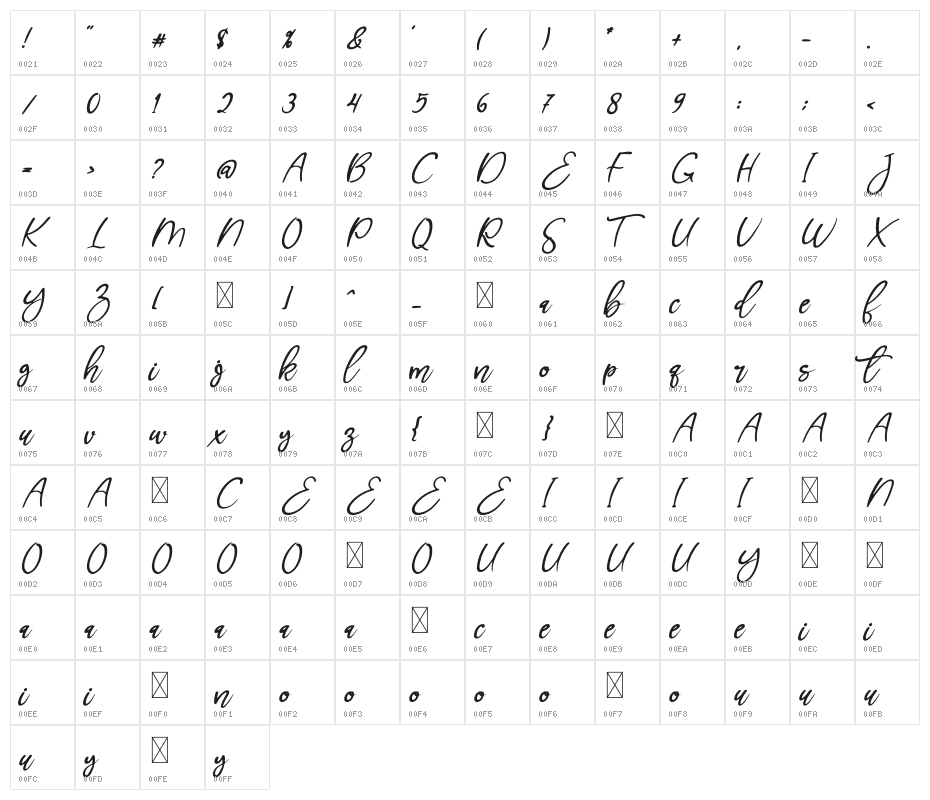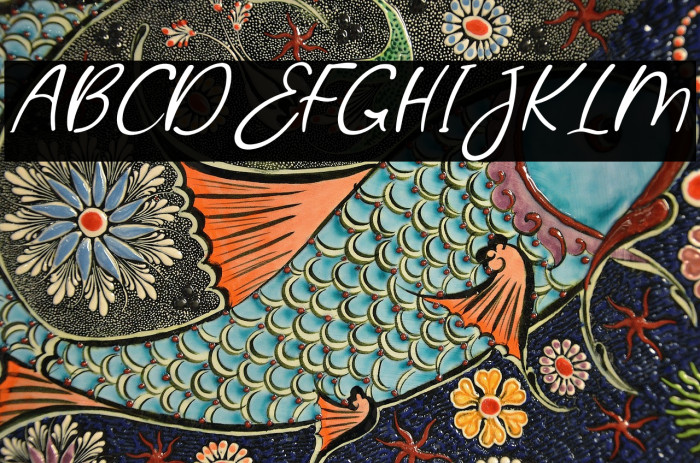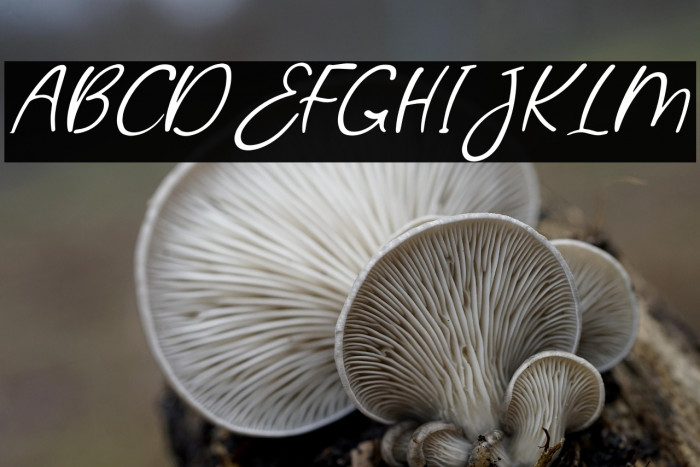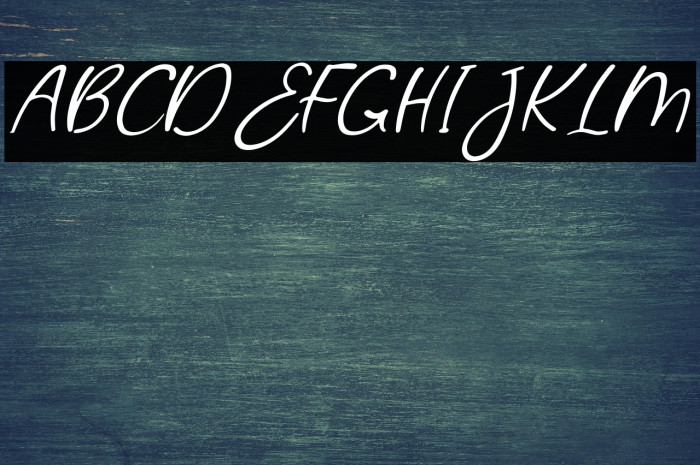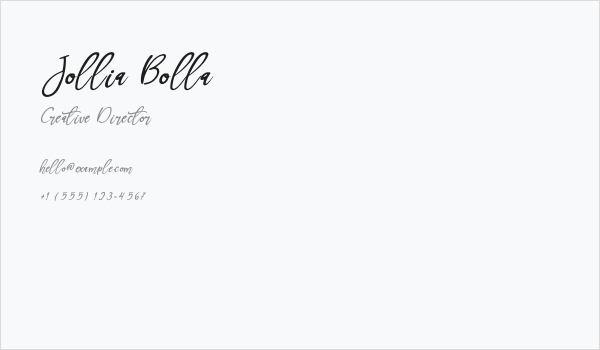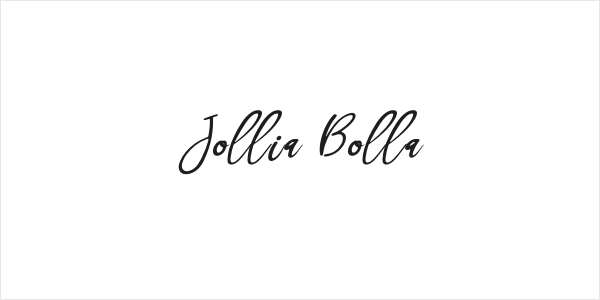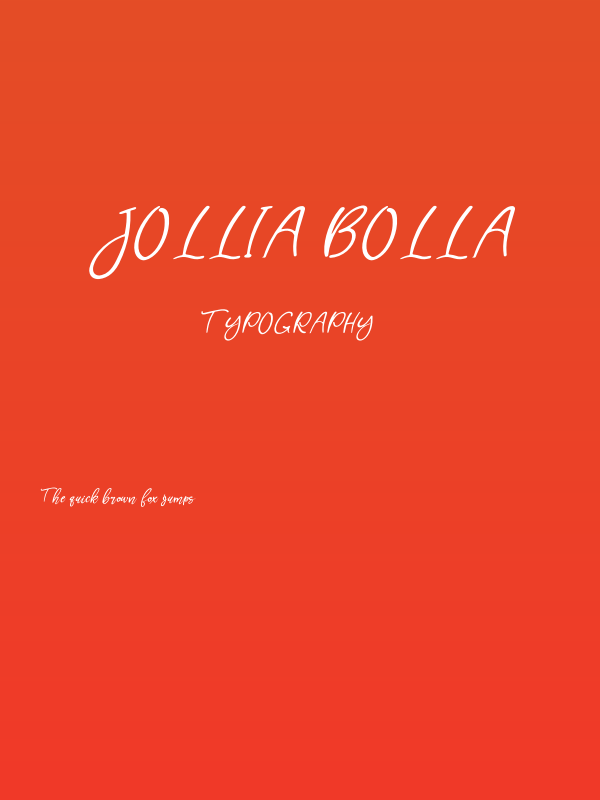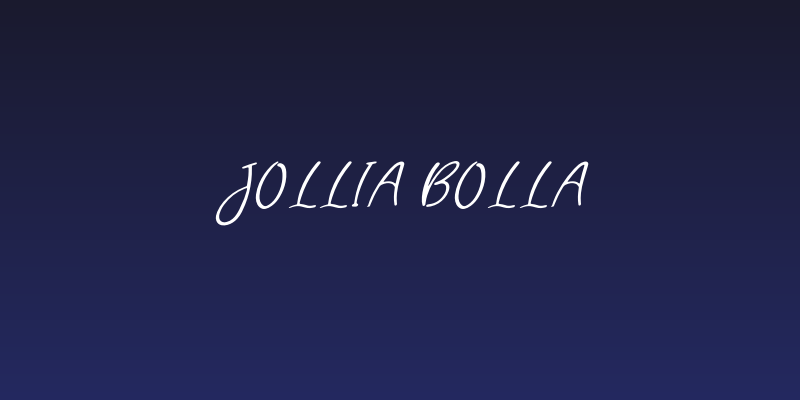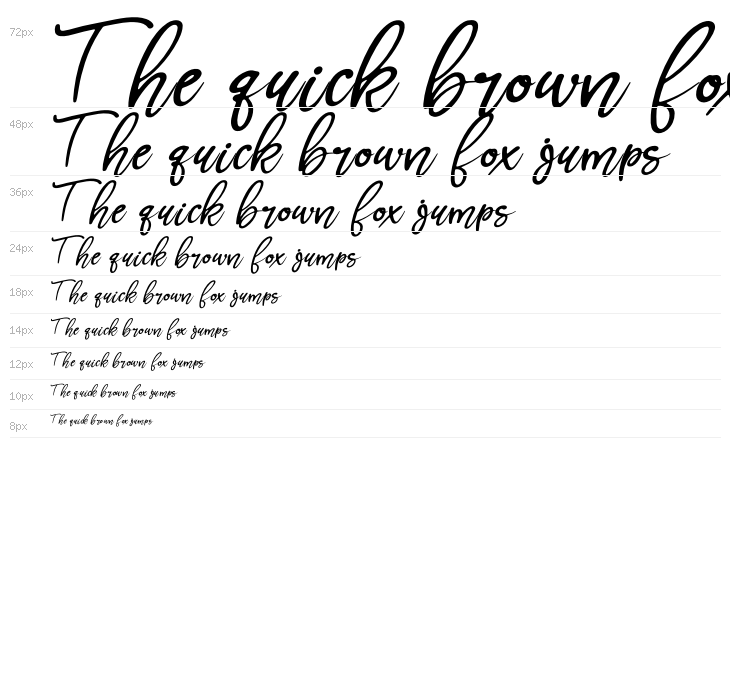
Jollia Bolla Font
Jollia Bolla Description
A flowing, cursive script font with a handwritten feel, featuring smooth curves and elegant strokes.
| Proposed Projects | Invitations, greeting cards, branding, and decorative text. |